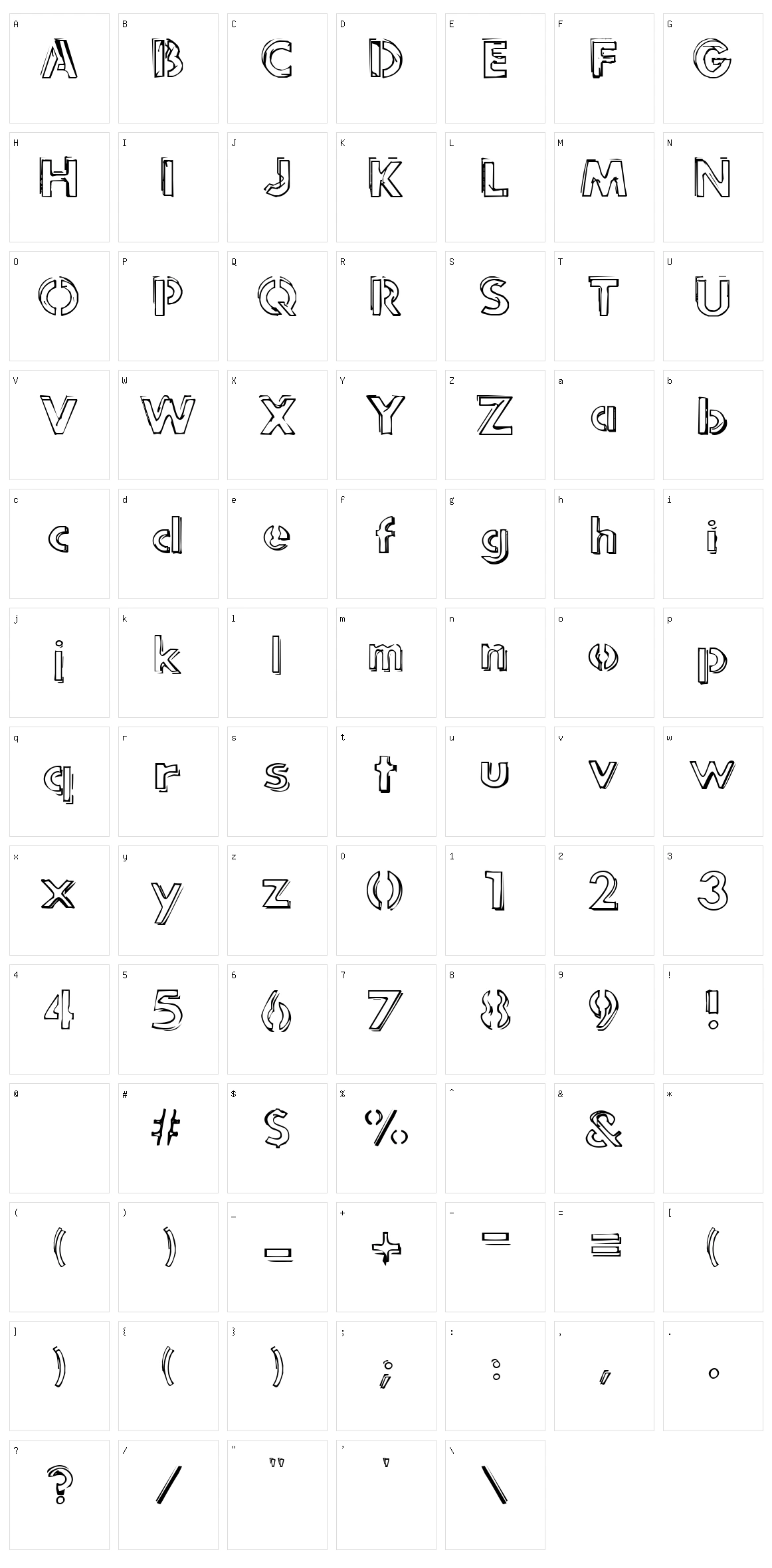
The free font Punk Rock Rummage Sale is carefully designed by Pennyzine, showcasing a thoughtful balance of creativity and usability and falls under the Distorted font style. When you download the ZIP file, it contains only 30.15 KB of font files, making it lightweight and quick to download. Please review the license details below to understand permitted usage and distribution rights. If license information is not available, we recommend using this font for personal projects only or contacting the author directly for commercial usage permissions.